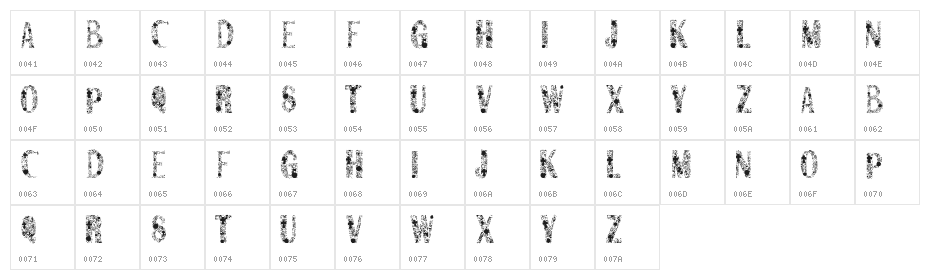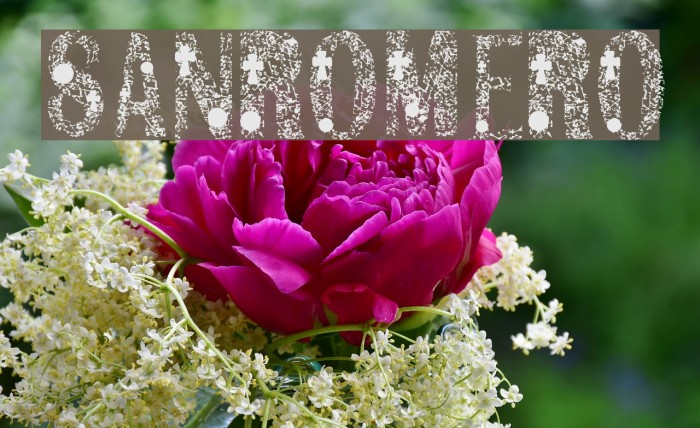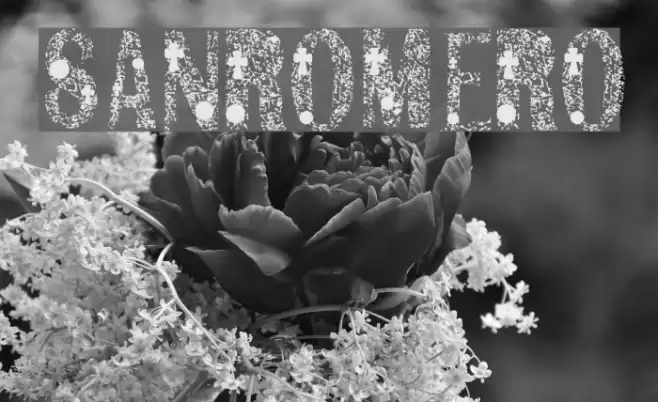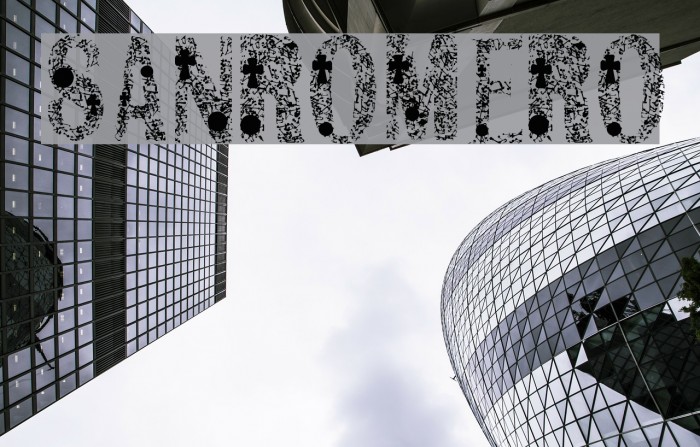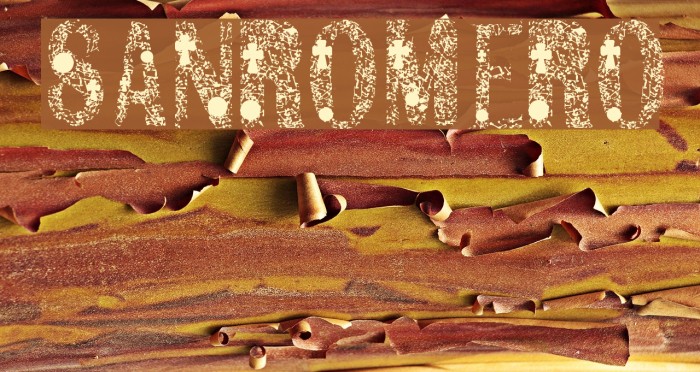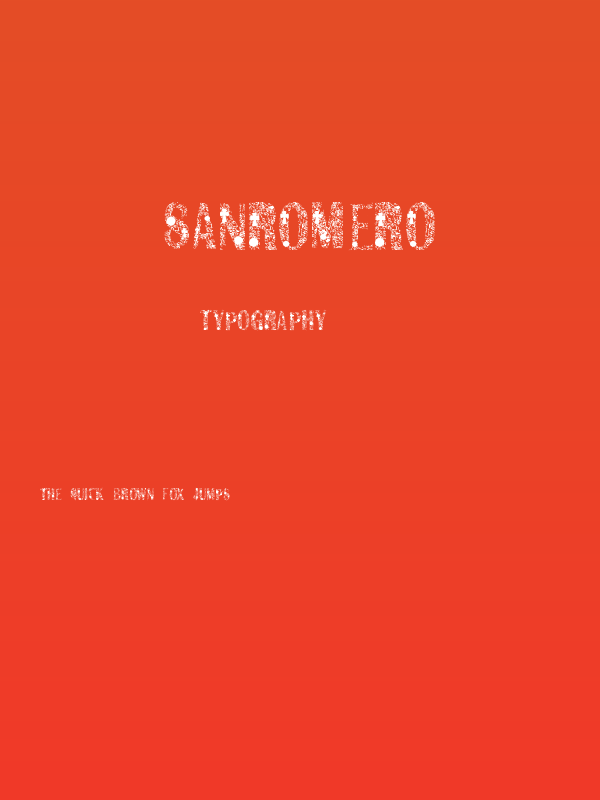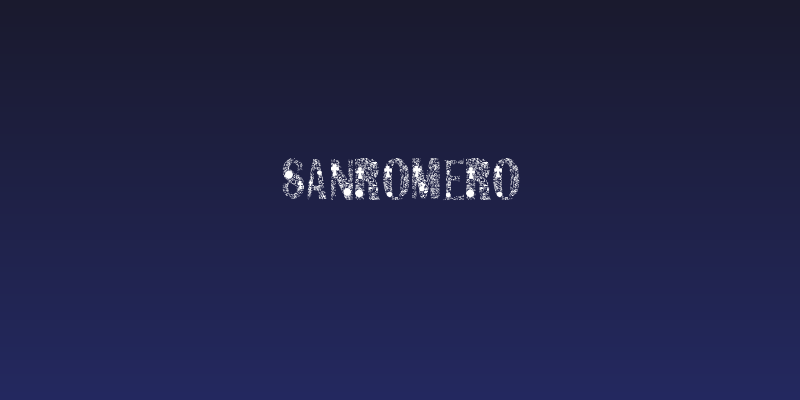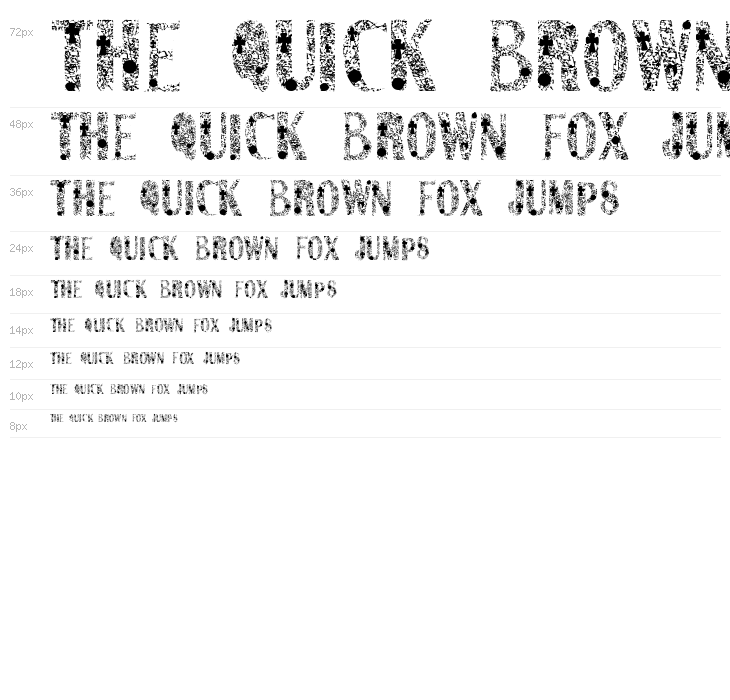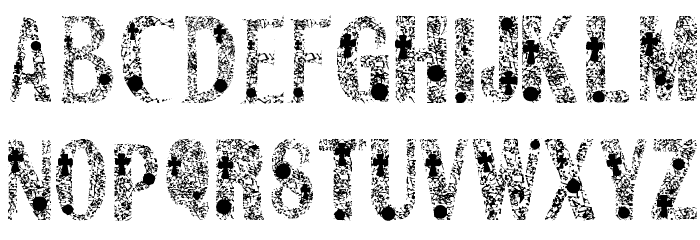
SANROMERO Font
SANROMERO Description
This font features a distressed, grunge aesthetic with a textured appearance that resembles worn or weathered surfaces. The characters are bold and impactful, with irregular edges and a speckled pattern that adds depth and visual interest. The uppercase letters are uniform in height, while the lowercase letters maintain a consistent style, enhancing readability despite the decorative elements. The numbers and special characters follow the same design, ensuring a cohesive look across all glyphs. This font's unique style makes it ideal for projects that require a rugged, edgy feel.
| Overall Style | Grunge, Edgy, Distressed |
| Proposed Projects | Ideal for album covers, posters, urban-themed designs, and branding that requires a gritty, edgy look. |